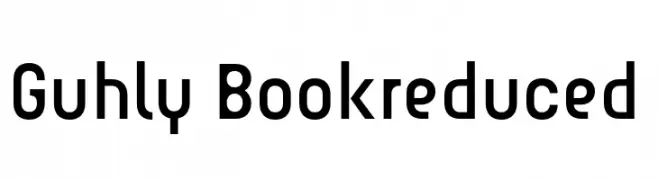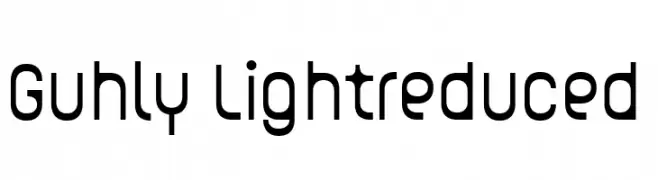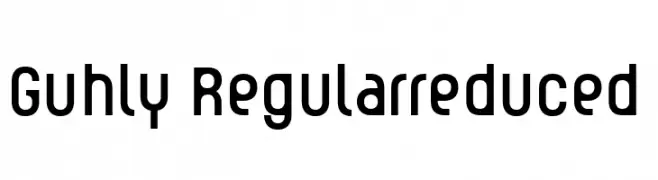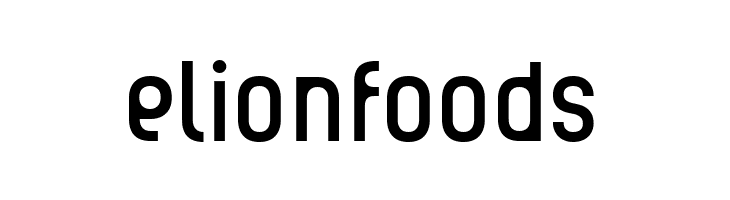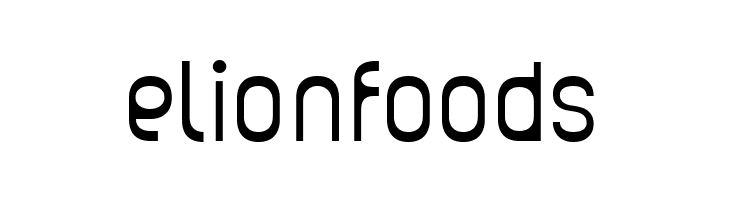
A modern, geometric sans-serif font with a slightly condensed and uniform appearance.
A modern, geometric sans-serif font with consistent stroke widths.
A modern, geometric font with rounded edges and a clean, approachable design.